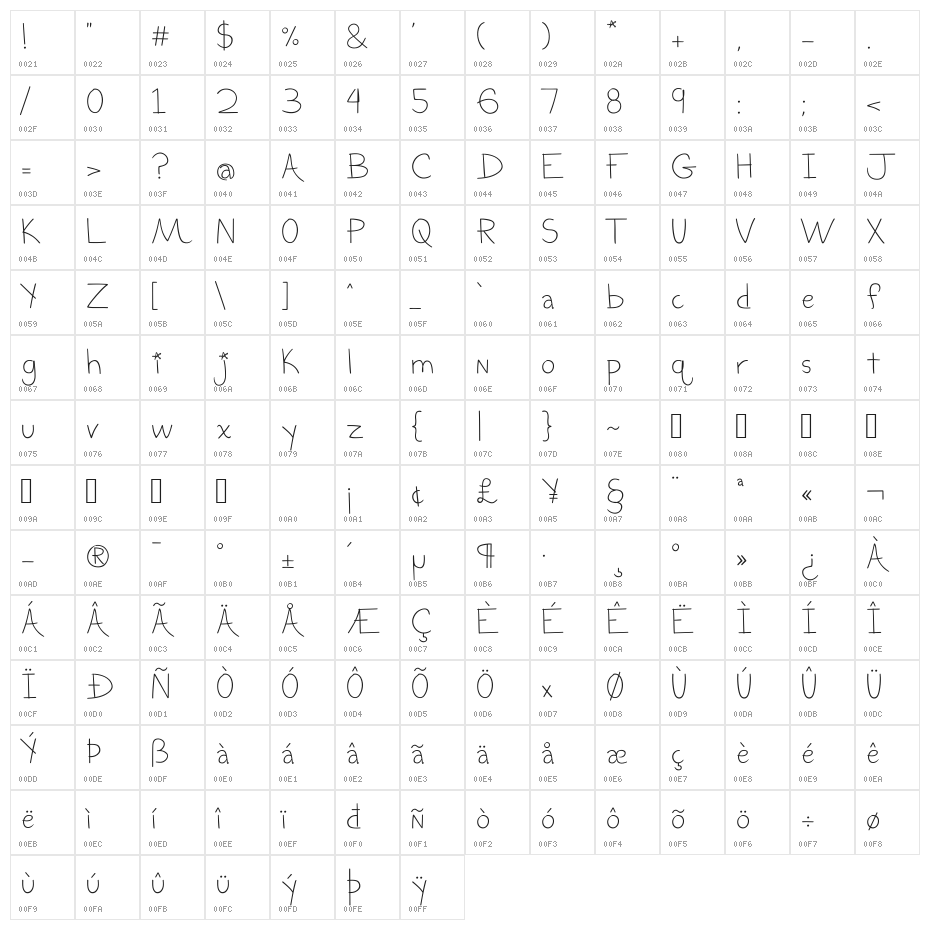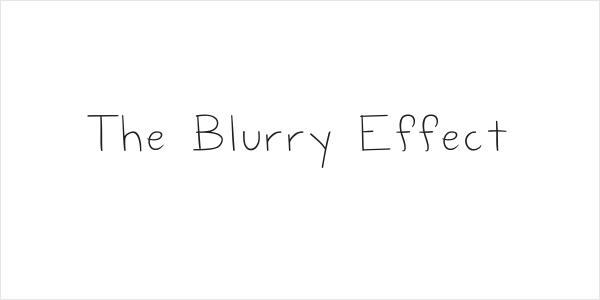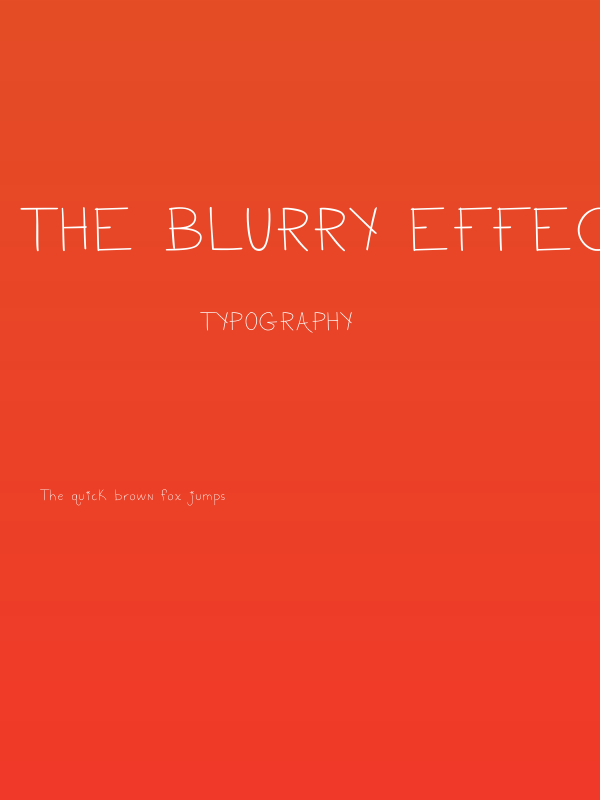
The Blurry Effect Font
The Blurry Effect Description
This font features a playful and whimsical design, characterized by its thin, slightly irregular strokes that give it a hand-drawn appearance. The letters are tall and narrow, with a casual, informal style that suggests a sense of fun and creativity. The uppercase and lowercase letters maintain a consistent style, with the lowercase letters slightly smaller and more rounded. The numbers and special characters follow the same playful aesthetic, making the font suitable for projects that require a light-hearted and approachable feel. The overall design is clean, with a modern twist on a handwritten style.
| Use Case | Headlines, Casual text, Creative projects |
| Proposed Projects | Ideal for children's books, creative posters, casual invitations, and playful branding. |